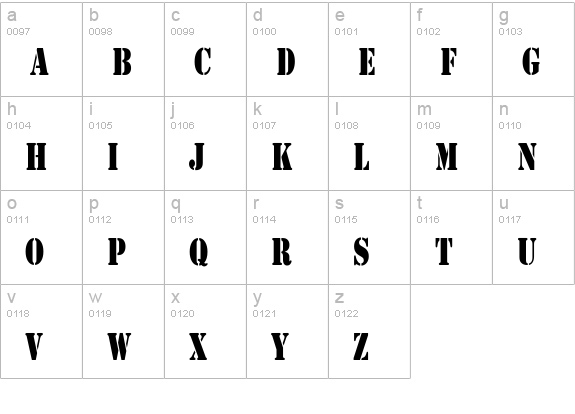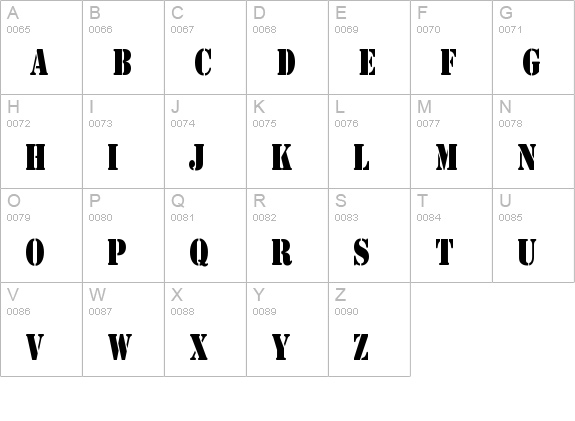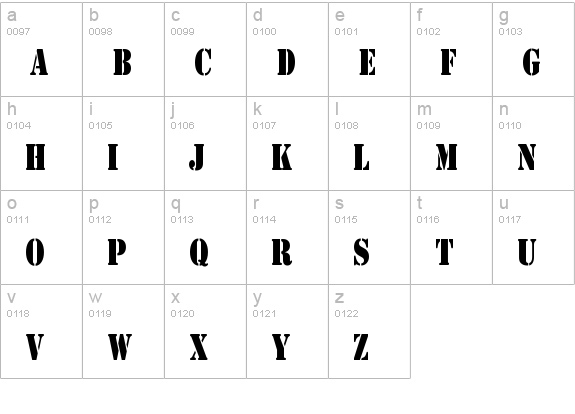
Army Condensed Font Details
Army Condensed is a distinctive, condensed-width variant in the Army typeface family \xE2\x80\x94 well suited to design and typography projects.
Introducing Army Condensed font, a bold and powerful typeface designed to command attention and make a statement. With its sturdy and compact design, this font exudes strength and authority, making it ideal for military-themed projects, headlines, posters, and more. Army Condensed font features sharp edges and clean lines that convey a sense of precision and professionalism. Its condensed form allows for efficient use of space while maintaining readability and impact. Whether used in print or digital media, this font is sure to make a bold impression. Best of all, Army Condensed font is completely free to download at FontsMarket.com. Don't miss out on the opportunity to add this versatile and commanding typeface to your font collection today!